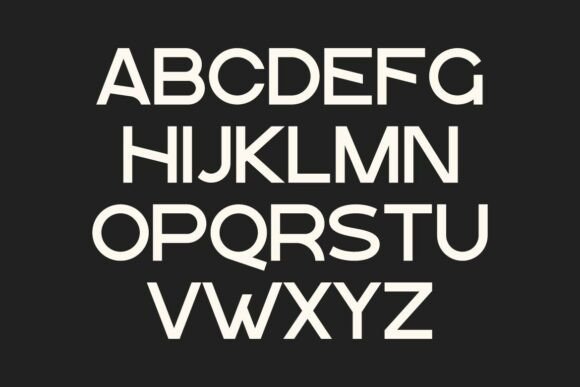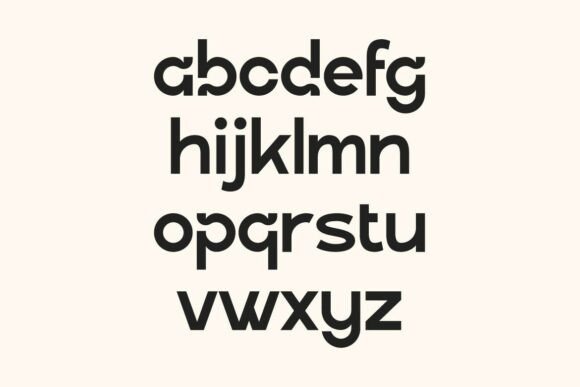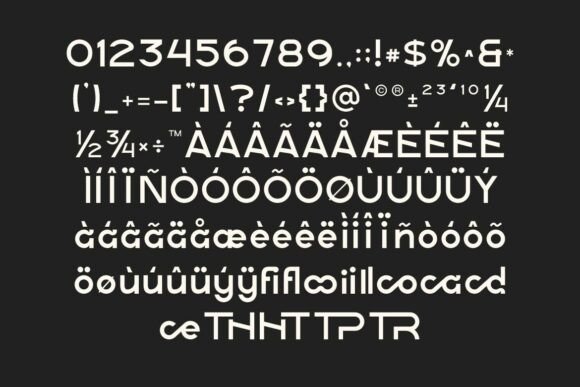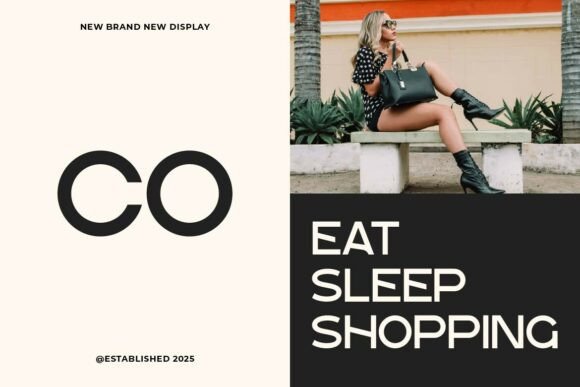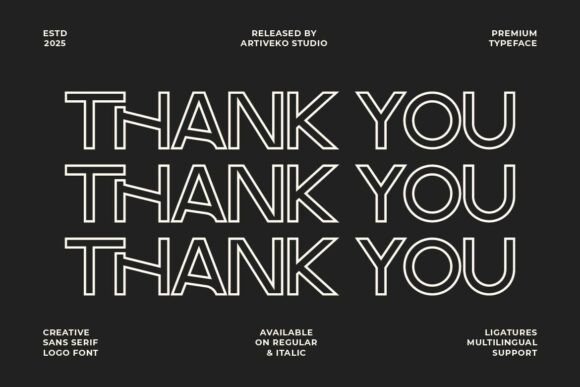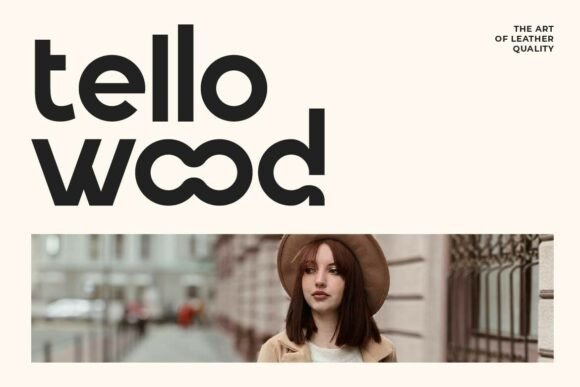
Introducing Docade Font: The Modern Creative Sans Serif for Bold Designs
In the world of typography, fonts play a crucial role in making or breaking a design. A well-crafted font can elevate a project from ordinary to extraordinary. For designers and crafters looking for a modern, creative sans serif font that exudes style and professionalism, look no further than Docade. This versatile font is designed to make a statement with its sleek lines, unexpected details, and balanced geometric feel.
What is Docade Font?
Docade is a contemporary sans serif font that has been carefully crafted to stand out in a crowd. Its subtle quirks and clean precision make it an ideal choice for designers seeking a fresh and modern look. With its unique blend of sleek lines and unexpected details, Docade adds a touch of personality to any design project.
Key Features of Docade Font
- Sleek Lines: Docade boasts sleek, streamlined lines that give it a modern and sophisticated feel.
- Unexpected Details: The font features unexpected details that add a touch of whimsy and creativity to any design.
- Balanced Geometric Feel: Docade’s geometric feel is perfectly balanced, making it easy to read and visually appealing.
- Subtle Quirks: The font’s subtle quirks add a touch of personality and make it stand out from more traditional sans serif fonts.
- Clean Precision: Docade’s clean precision ensures that it looks great in both digital and print formats.
Docade’s versatility makes it an excellent choice for a wide range of design projects, including:
- Branding: Use Docade to create a bold and memorable brand identity that stands out from the competition.
- Logos: The font’s unique features make it perfect for creating eye-catching logos that capture the essence of a brand.
- Posters: Docade’s sleek lines and modern feel make it an excellent choice for creating striking posters that grab attention.
- Packaging: Add a touch of style and sophistication to packaging designs with Docade’s clean and precise lines.
- Tech Visuals: The font’s modern feel makes it perfect for tech-related designs, such as website headers, app icons, and more.
- Editorial Layouts: Use Docade to add a touch of style and professionalism to editorial layouts, such as magazines, newspapers, and blogs.
Why Choose Docade Font?
With so many fonts to choose from, why should designers and crafters choose Docade? Here are just a few reasons:
- Unique Style: Docade’s unique blend of sleek lines, unexpected details, and balanced geometric feel sets it apart from other sans serif fonts.
- Versatility: The font’s versatility makes it suitable for a wide range of design projects, from branding and logos to posters and editorial layouts.
- Professional Look: Docade’s clean precision and modern feel make it perfect for designs that require a professional look and feel.
- Easy to Read: The font’s balanced geometric feel and clean lines make it easy to read, even at small sizes.
In conclusion, Docade is a modern creative sans serif font that is sure to elevate any design project. Its unique blend of sleek lines, unexpected details, and balanced geometric feel makes it perfect for designers and crafters looking for a fresh and stylish font. With its versatility, professional look, and ease of use, Docade is an excellent choice for a wide range of design projects. Whether you’re working on branding, logos, posters, packaging, tech visuals, or editorial layouts, Docade is the perfect font to add a touch of style and sophistication.